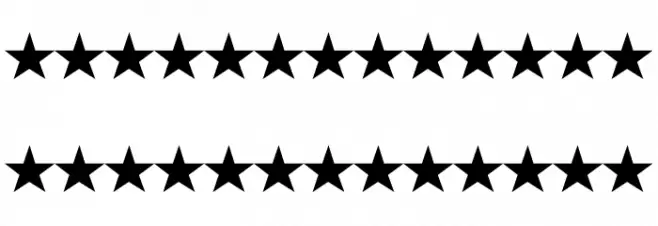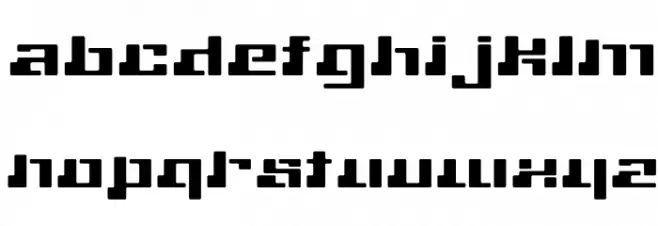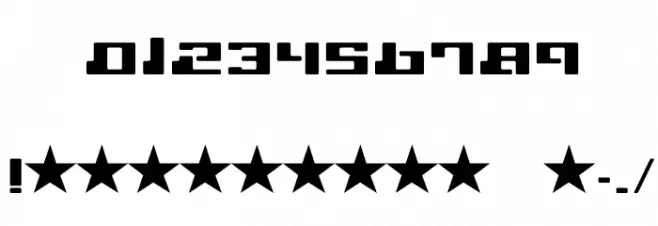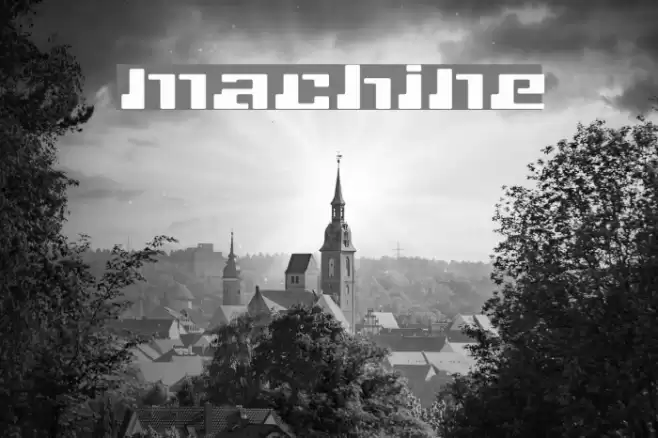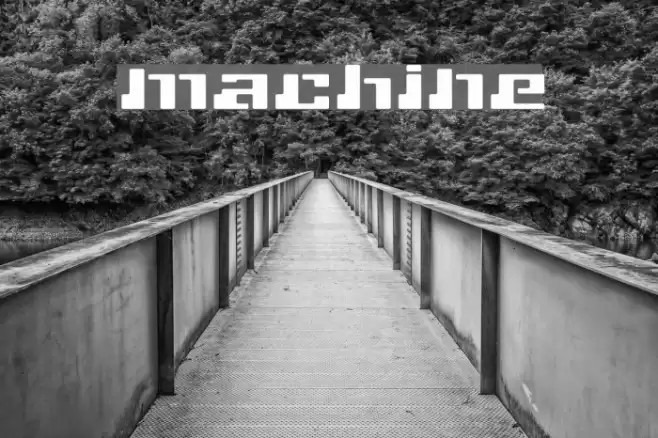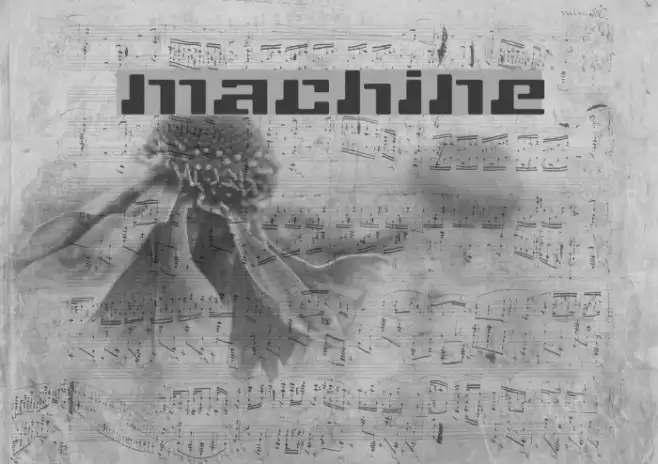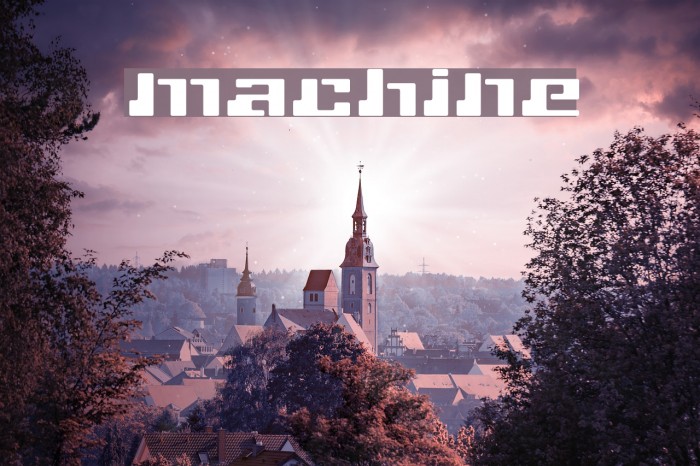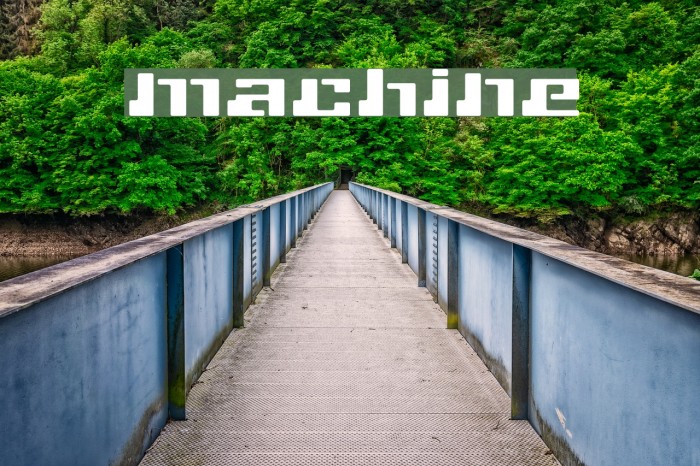
machine
This font exhibits a bold and blocky design with a distinctly modern and industrial feel. The characters are composed of thick, straight lines and sharp angles, giving them a robust and mechanical appearance. The uppercase and lowercase letters maintain a consistent style, with minimal curves and a focus on geometric shapes. The numbers follow the same design principles, ensuring uniformity across the font. Special characters are also designed to match the overall aesthetic, featuring the same bold and angular construction. The font's heavy weight and strong presence make it ideal for attention-grabbing designs.
A bold, blocky font with a modern, industrial aesthetic.
- Proposed Projects: Ideal for posters, logos, and branding projects that require a strong, industrial look.